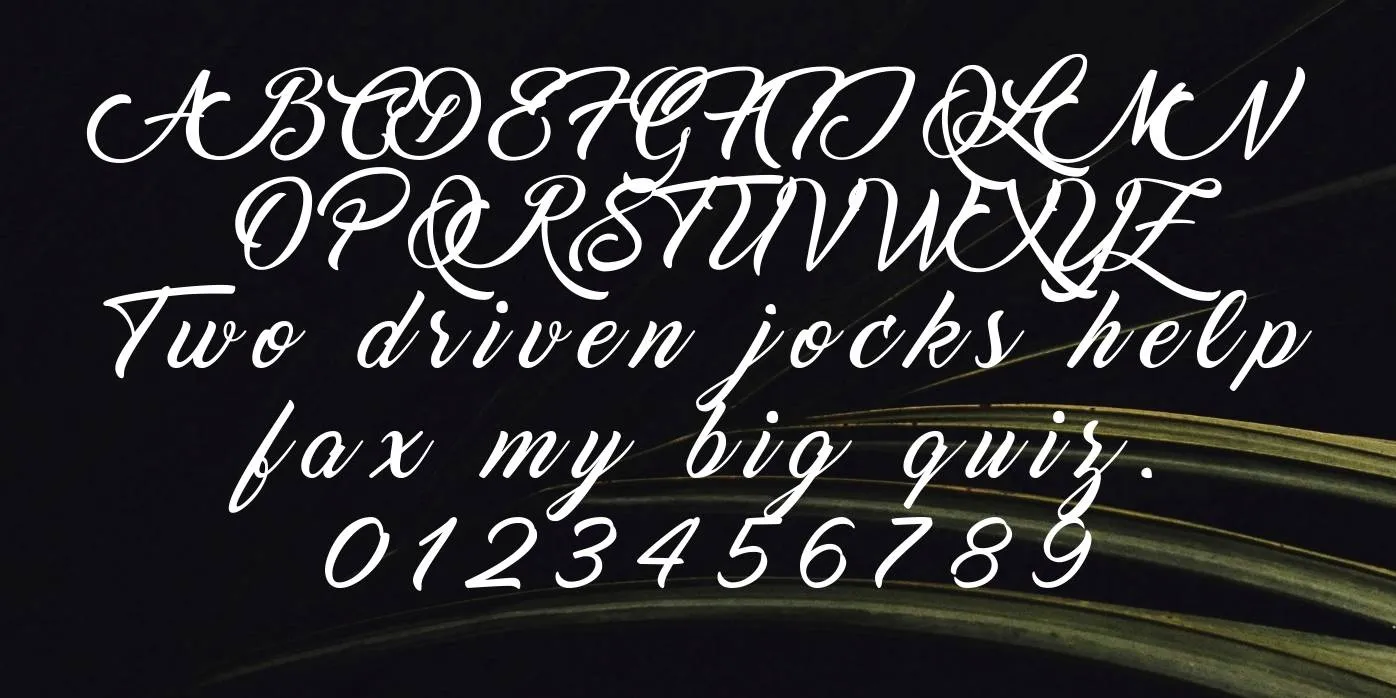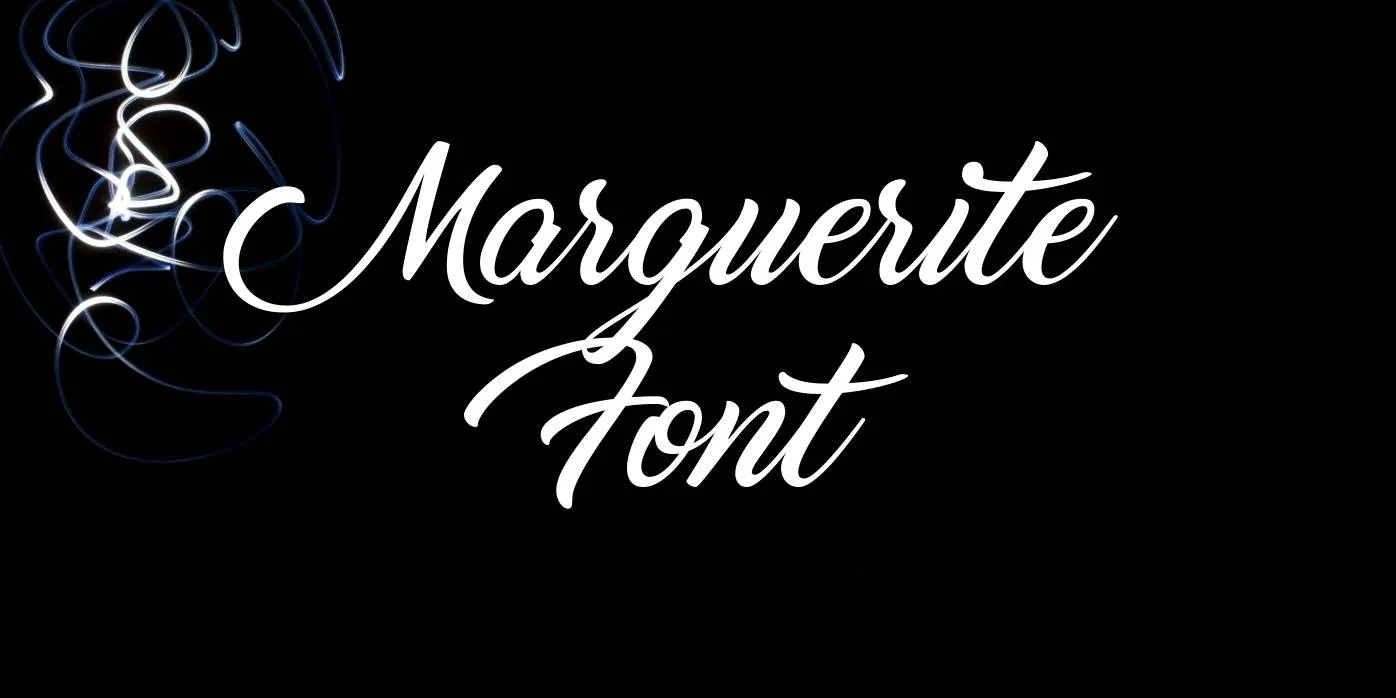
Marguerite Font
Today, we are consulting on a very famous font family that gets massive popularity in the designing market and is famous by the name Marguerite Font. This amazing font belongs to the Script font family. This tremendous font was designed by the most brilliant designer named StereoType. This typeface is unique and popular because of its great number of Glyphs and Characters.
Mostly this font comes in 140 famous Glyphs and more than 190 strong characters. By using its stylish swashes you make your designs more perfect and wonderful. Its common characters are uppercase, lowercase, symbols, and others more. This classic font is free for your works you can use it without any types of difficulties.
This stunning font has clean and simple textures. Its popularity depends on the neatness and cleanliness of this classy typeface. You can enjoy its benefits free of cost for all private works. It is famous due to its Bold and Italic Weights.
Magnolia Sky is the most similar font to this typeface that makes designs more attractive. Different brands used this for their brand designing like Mug designs, Art designs, and other related designs. While in a different educational institution it provides the best interface. Its Different Alphabets increase its performance.